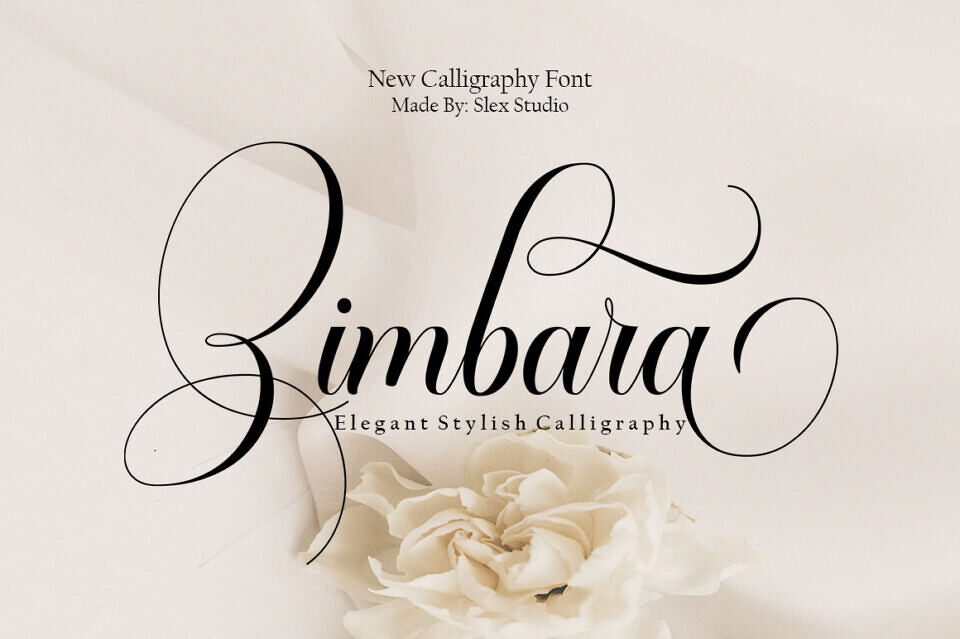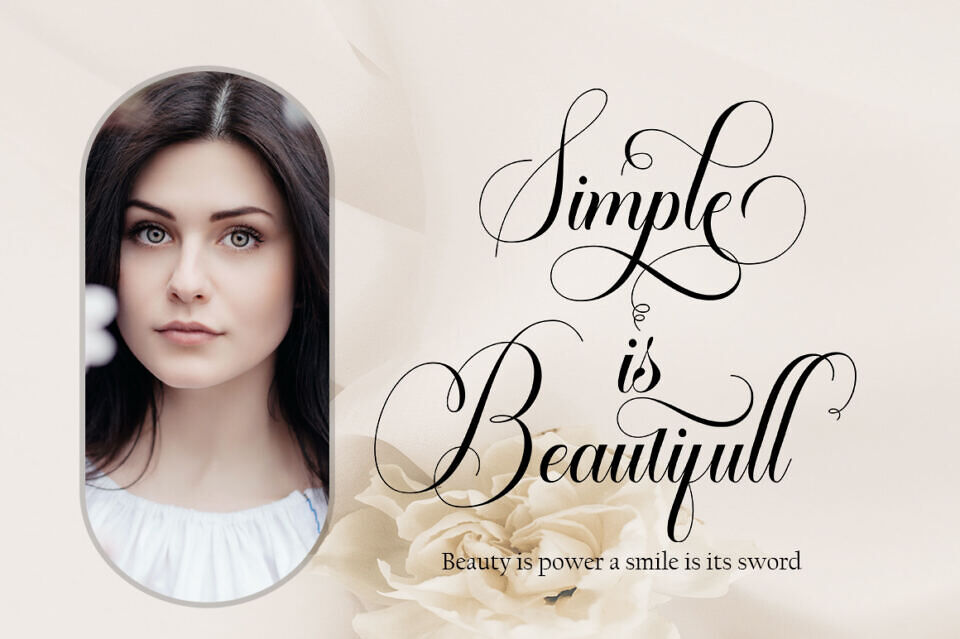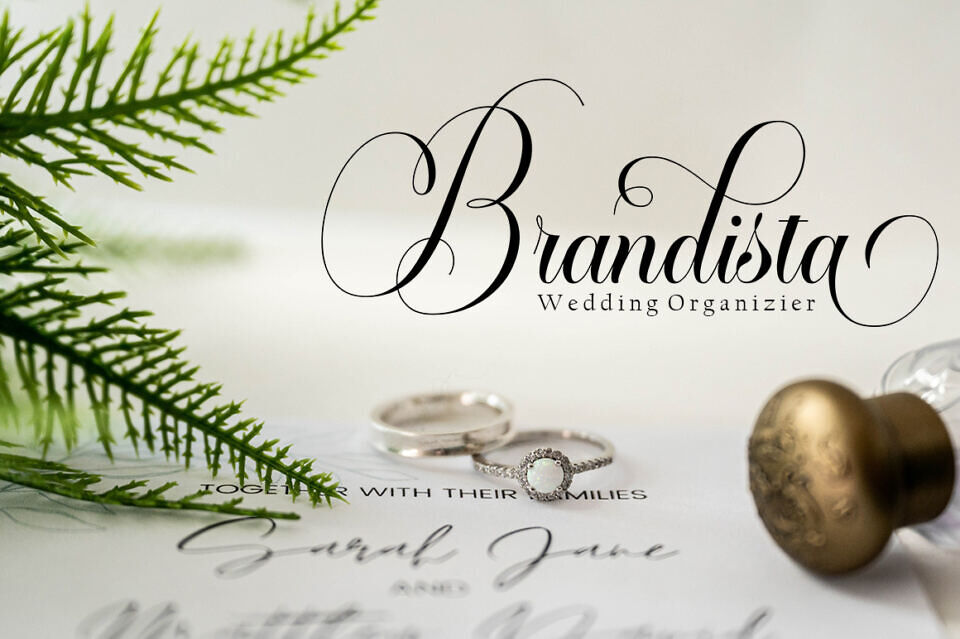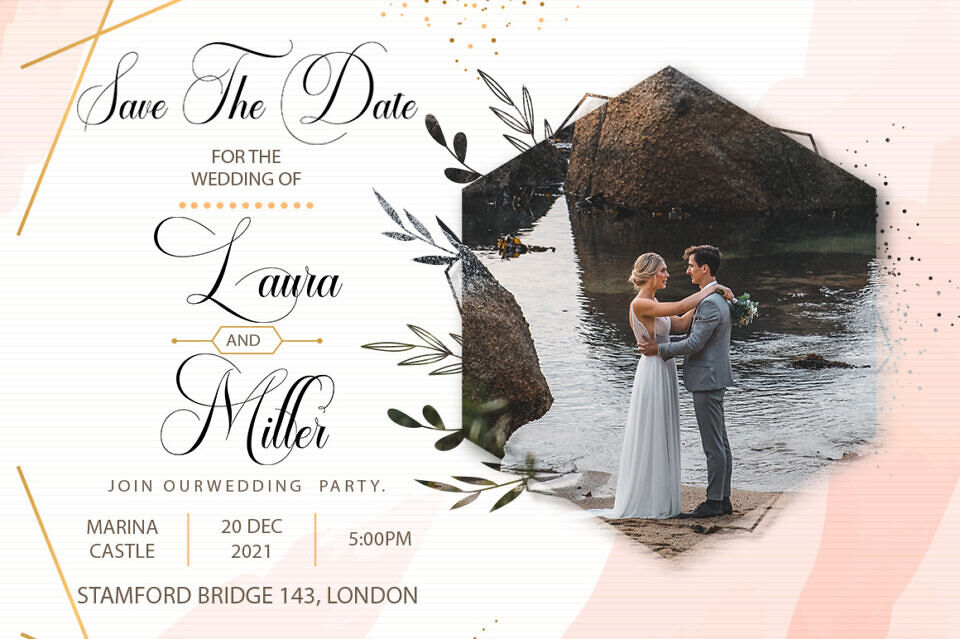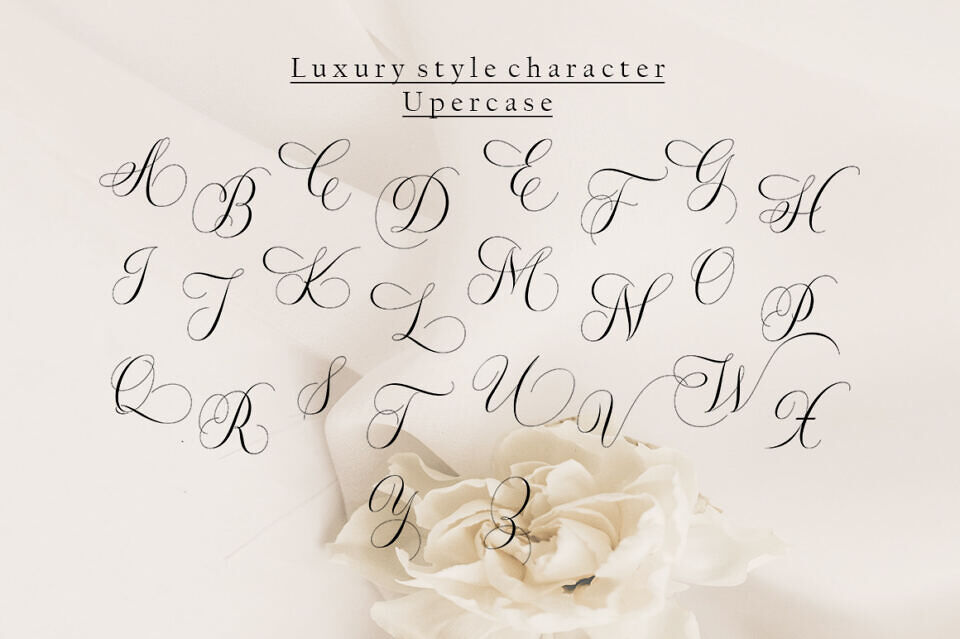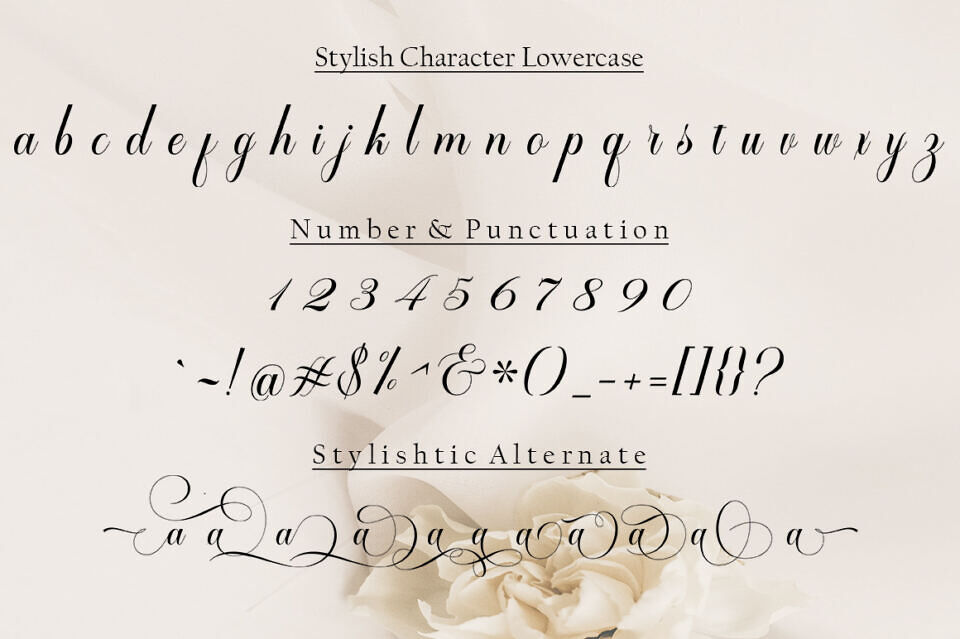
The Zimbara script font combines classic sophistication with elegant flair, drawing inspiration from the handwritten style of ancient manuscripts. It now includes bold font options and beautiful extras, perfect for adding a touch of refinement to any design.
Carefully designed to work together in harmony that makes it very suitable for wedding media, book covers, greeting cards, logos, branding, business cards and certificates, even for any design work that requires a classic, formal or luxurious.